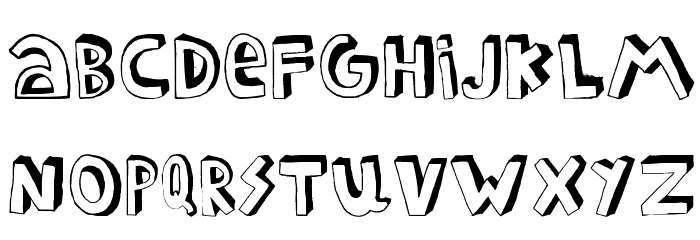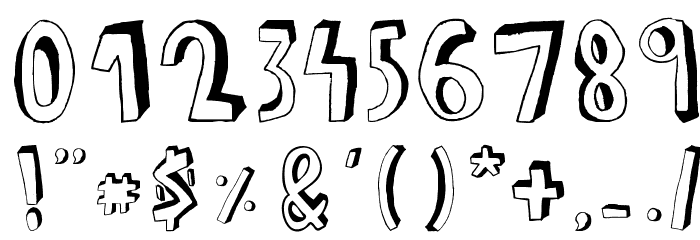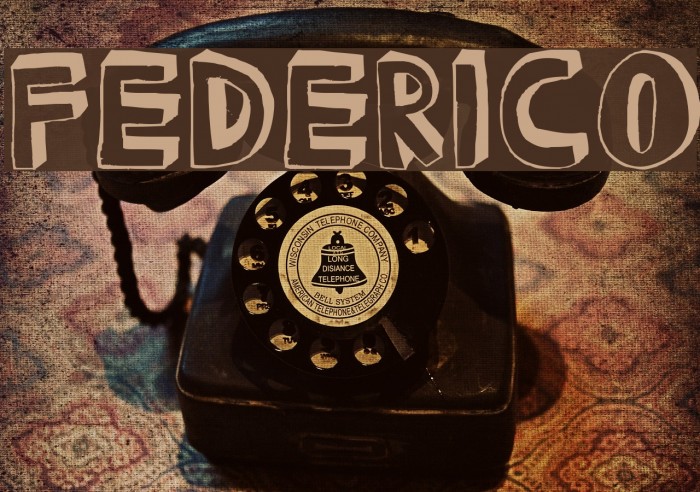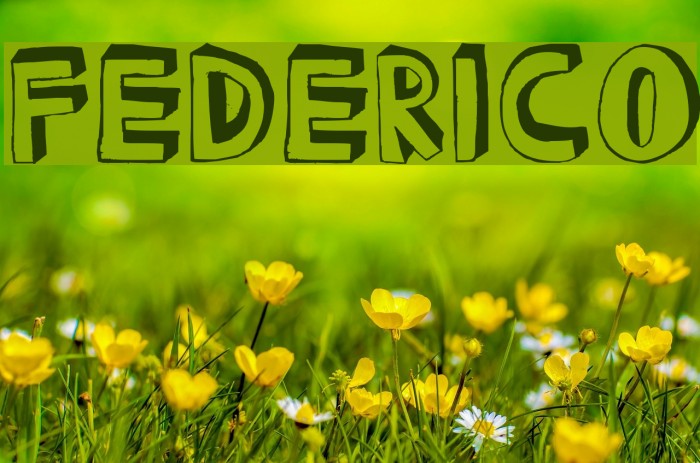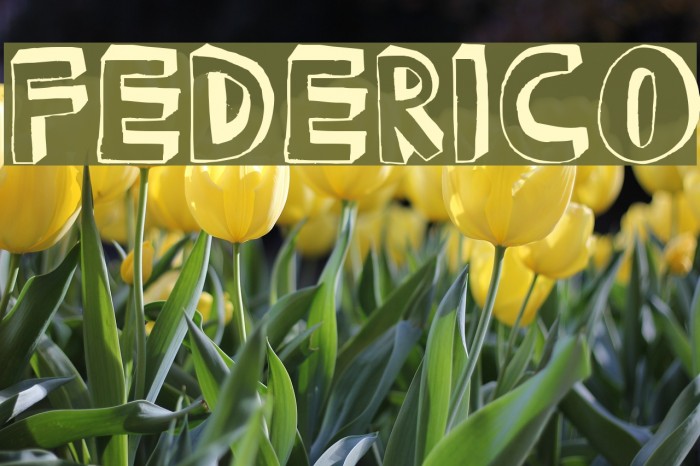
FEDERICO Font
This font features a bold, playful style with a three-dimensional effect, giving each character a shadowed appearance. The uppercase letters are robust and dynamic, with a hand-drawn aesthetic that adds a sense of movement and energy. The lowercase letters maintain this lively style, offering a consistent look across both cases. Numbers and special characters are equally bold, with the same shadowed effect that enhances their visibility and impact. The overall design is reminiscent of comic book lettering, making it ideal for projects that require a fun and engaging visual element.
A bold, playful font with a three-dimensional, comic book style.
- Proposed Projects: Ideal for comic books, children's books, posters, and playful branding projects.
- Overall Style: Playful, Comic